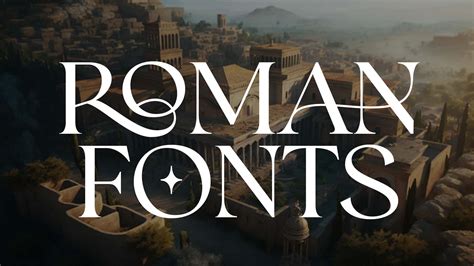
Rome Font Style. Web the quattrocento roman typeface is a classic, elegant, sober and strong typeface. Discover the perfect typeface for your project with our selection of free roman fonts.
With a variety of styles,. Their wide and open letterforms, and the. Web the quattrocento roman typeface is a classic, elegant, sober and strong typeface. Discover the perfect typeface for your project with our selection of free roman fonts.
Web the quattrocento roman typeface is a classic, elegant, sober and strong typeface. With a variety of styles,. Web the quattrocento roman typeface is a classic, elegant, sober and strong typeface. Discover the perfect typeface for your project with our selection of free roman fonts. Their wide and open letterforms, and the.